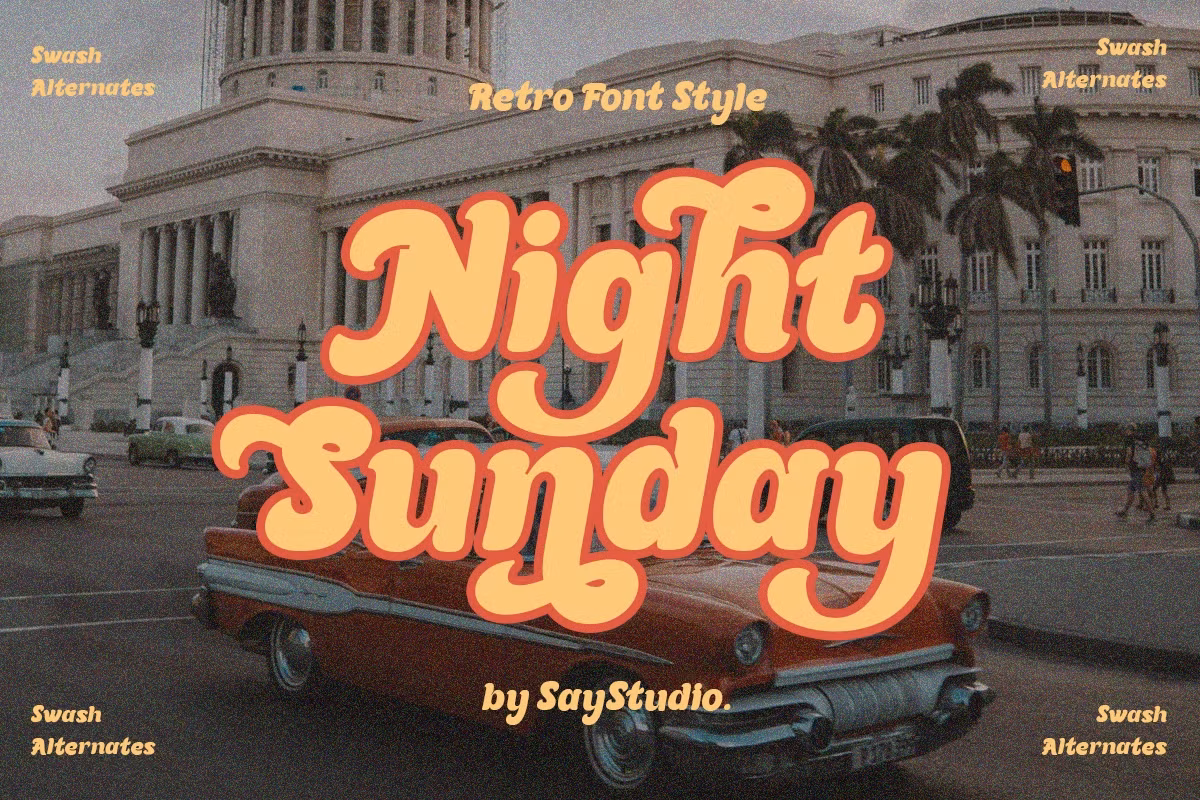
Night Sunday - Retro Font Free Download
Night Sunday - Retro Font Free Download is a stylish throwback typeface that captures the bold, funky spirit of the '70s and '80s. With its curvy lines, groovy vibes, and strong presence, Night Sunday is the perfect choice for retro-inspired branding, posters, t-shirt designs, social media graphics, and vintage-style packaging. It's bold, nostalgic, and full of personality.
What makes Night Sunday - Retro Font Free Download stand out is its smooth letterforms and attention-grabbing curves. It brings instant character to your work, whether you’re going for disco-era drama or laid-back summer nostalgia. Paired with the right colors and design elements, this font becomes a true centerpiece.